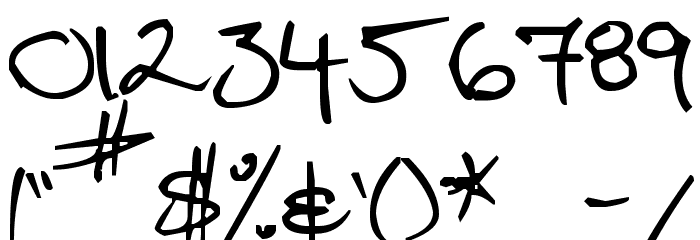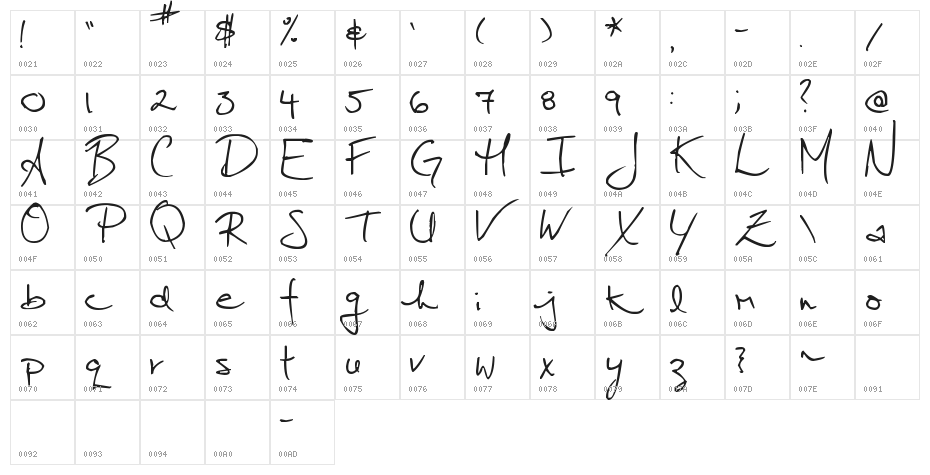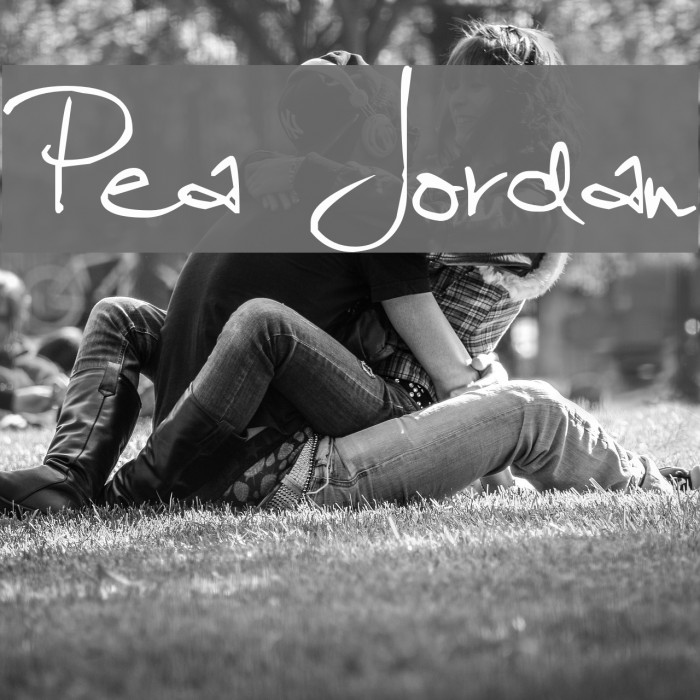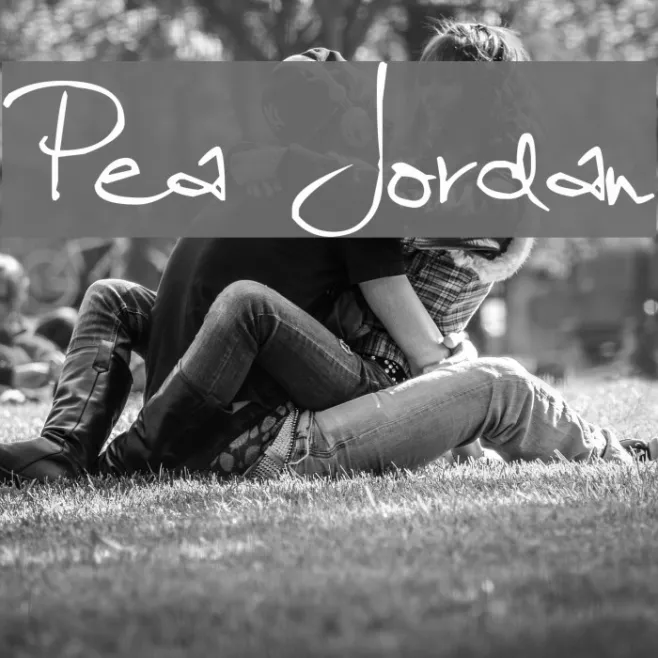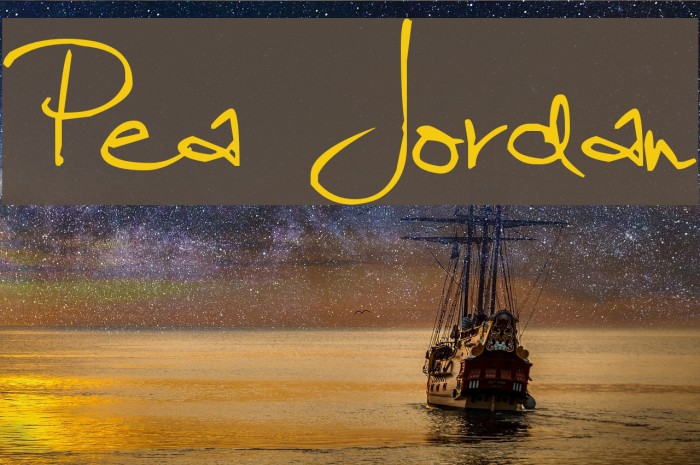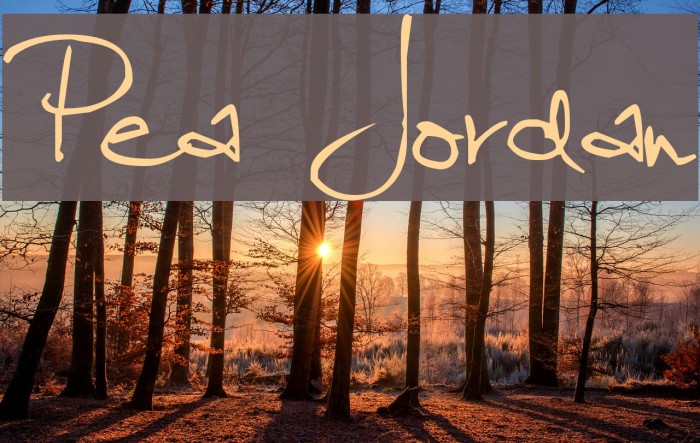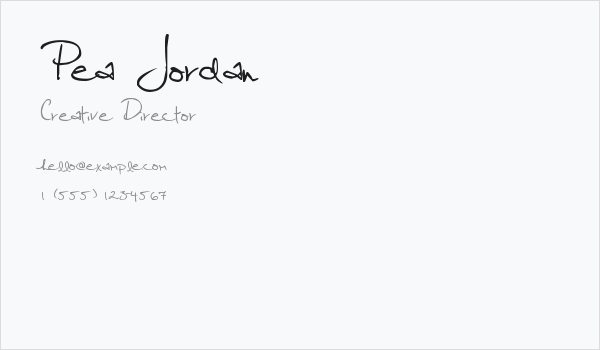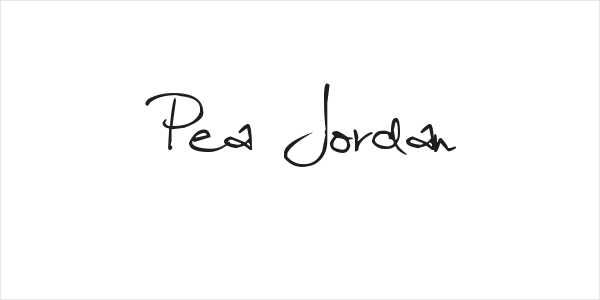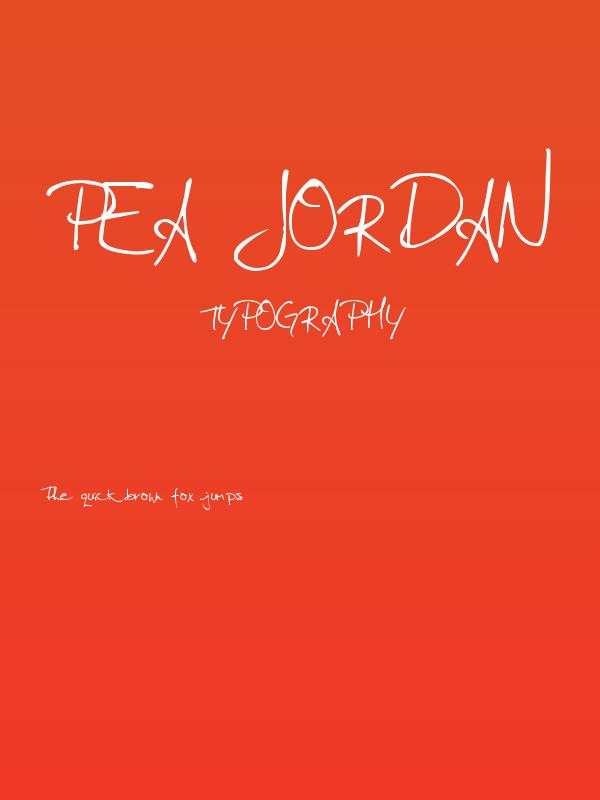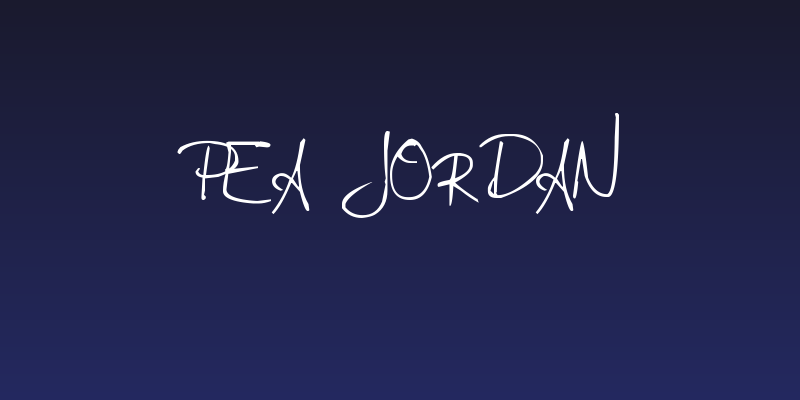
Pea Jordan Font
Pea Jordan Description
This font exudes a casual, handwritten style with a playful and informal appearance. The letters are characterized by their flowing, cursive-like strokes, giving them a dynamic and lively feel. The uppercase letters maintain a consistent height, while the lowercase letters vary in size, adding to the font's whimsical nature. The numbers and special characters follow the same playful design, ensuring a cohesive look across all glyphs. The overall style is reminiscent of personal notes or informal correspondence, making it approachable and friendly.
| Use Case | Invitations, Greeting cards, Personal notes |
| Proposed Projects | Ideal for personal notes, invitations, greeting cards, or any project requiring a friendly and informal touch. |